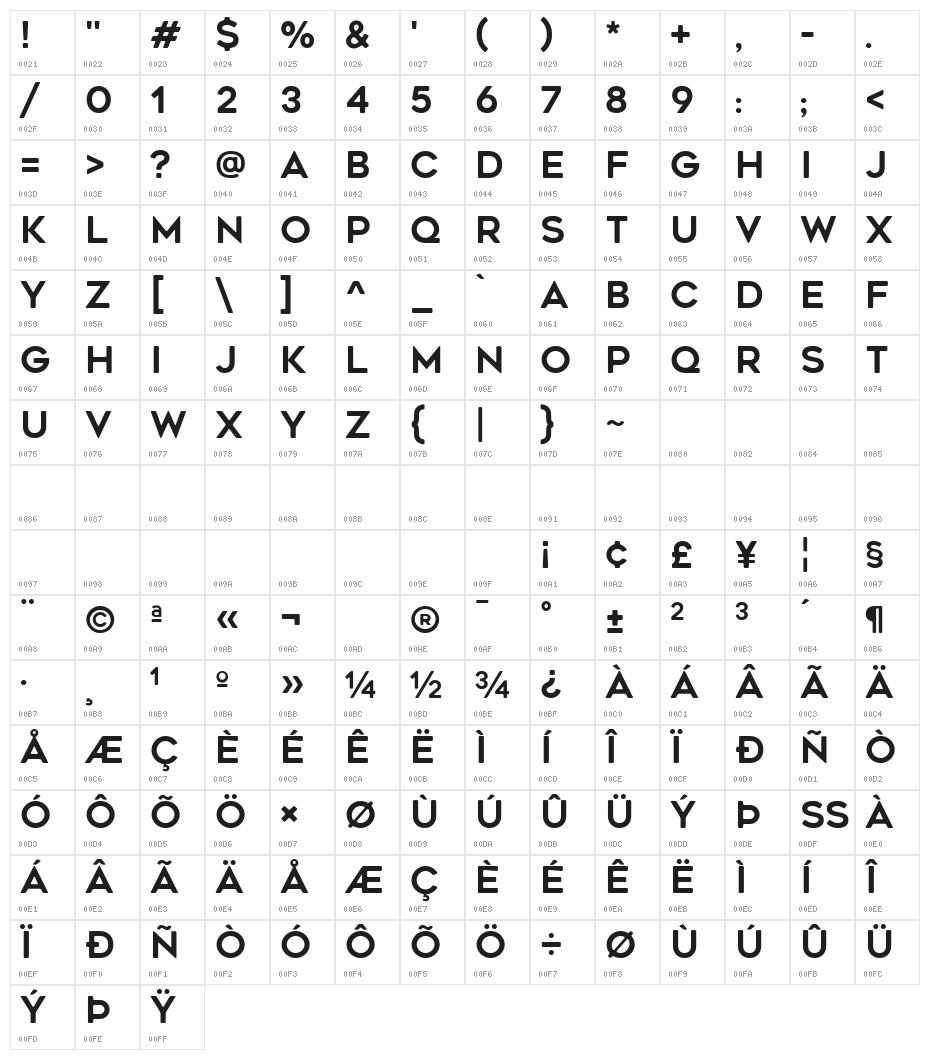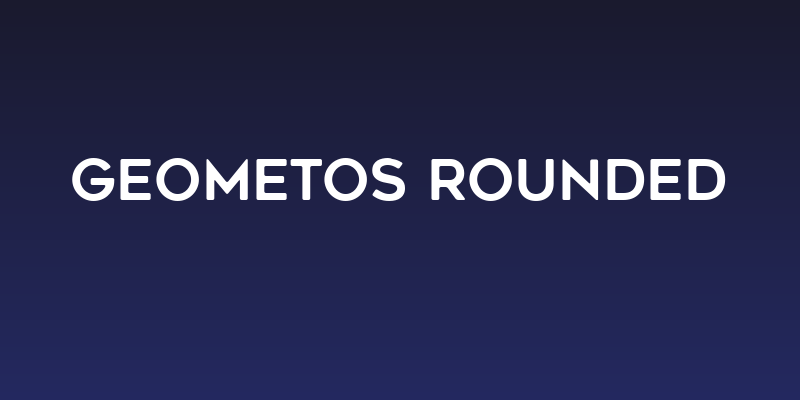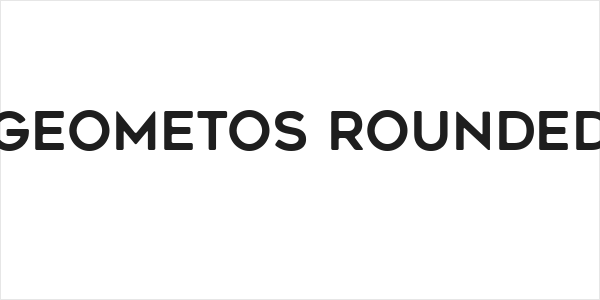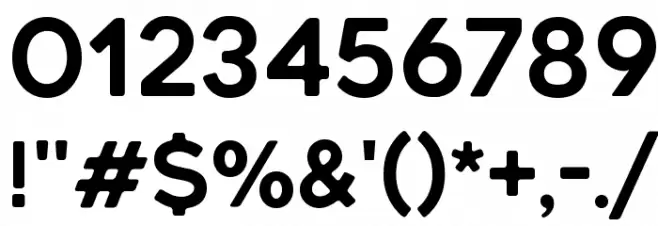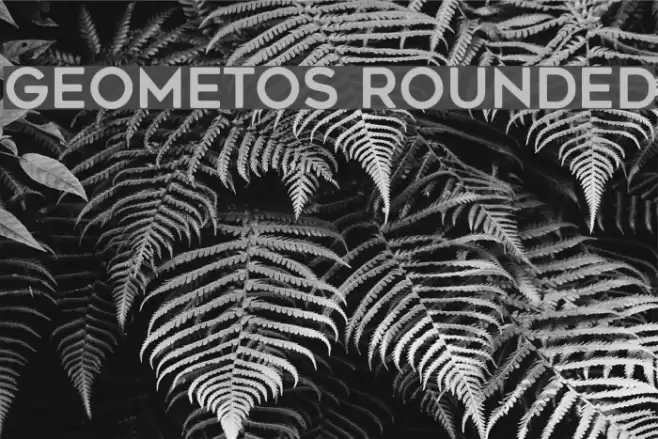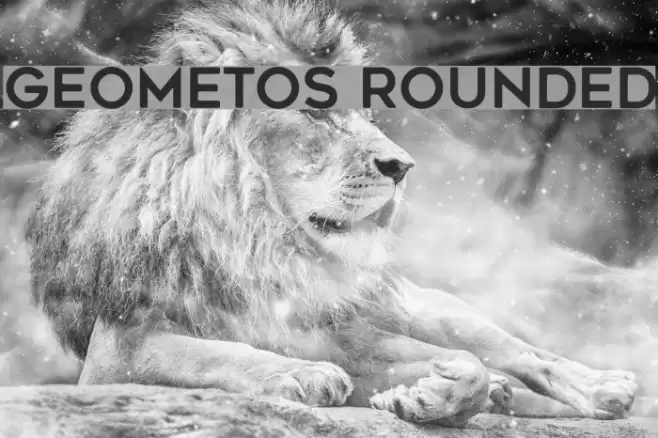
Geometos Rounded Font
Geometos Rounded Description
This font features a clean, modern aesthetic with rounded edges that give it a friendly and approachable feel. The geometric structure is evident in the uniformity and symmetry of each character, making it highly legible and versatile. The uppercase and lowercase letters maintain a consistent weight, contributing to a balanced appearance. The numerals are clear and distinct, ensuring readability in various contexts. Special characters are well-integrated, maintaining the overall style. This font's simplicity and rounded forms make it suitable for a wide range of applications, from digital interfaces to print media.
| Use Case | Headlines, Body text, Logos |
| Proposed Projects | Ideal for branding, user interfaces, signage, and educational materials. |